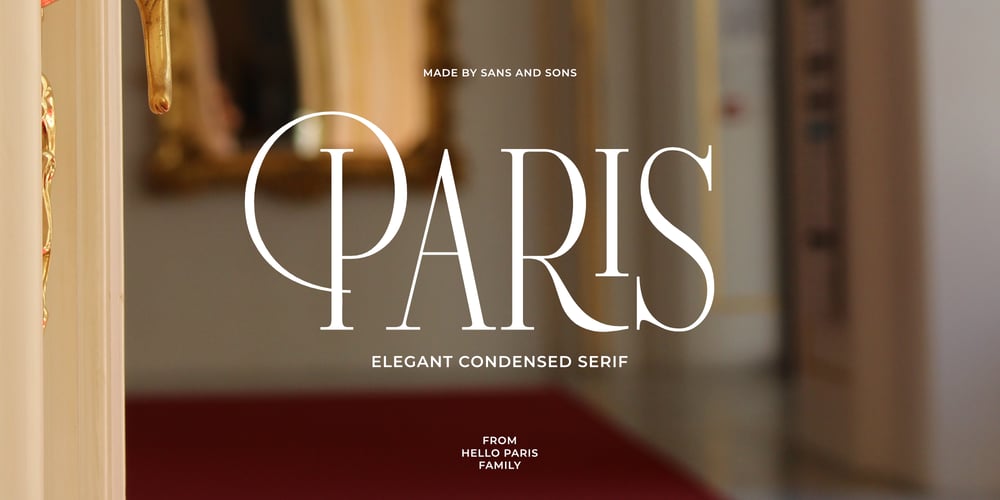
Hello Paris Condensed Font Family was designed by Angga Suwista and published by Sans And Sons. Hello Paris Condensed contains 1 styles and family package options. Hello Paris Serif Condensed is a Modern Serif with Elegant Style is perfect for branding, logos, invitation, master heads, and more.Hello Paris Features :- Multilanguage- Alternates- PUA Encoded- Ligatures